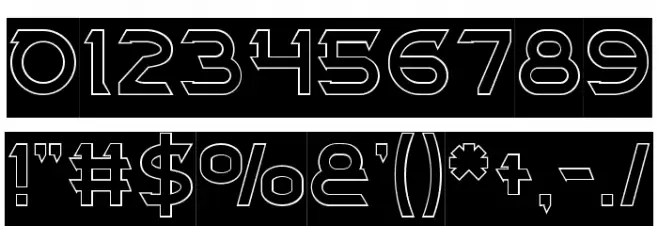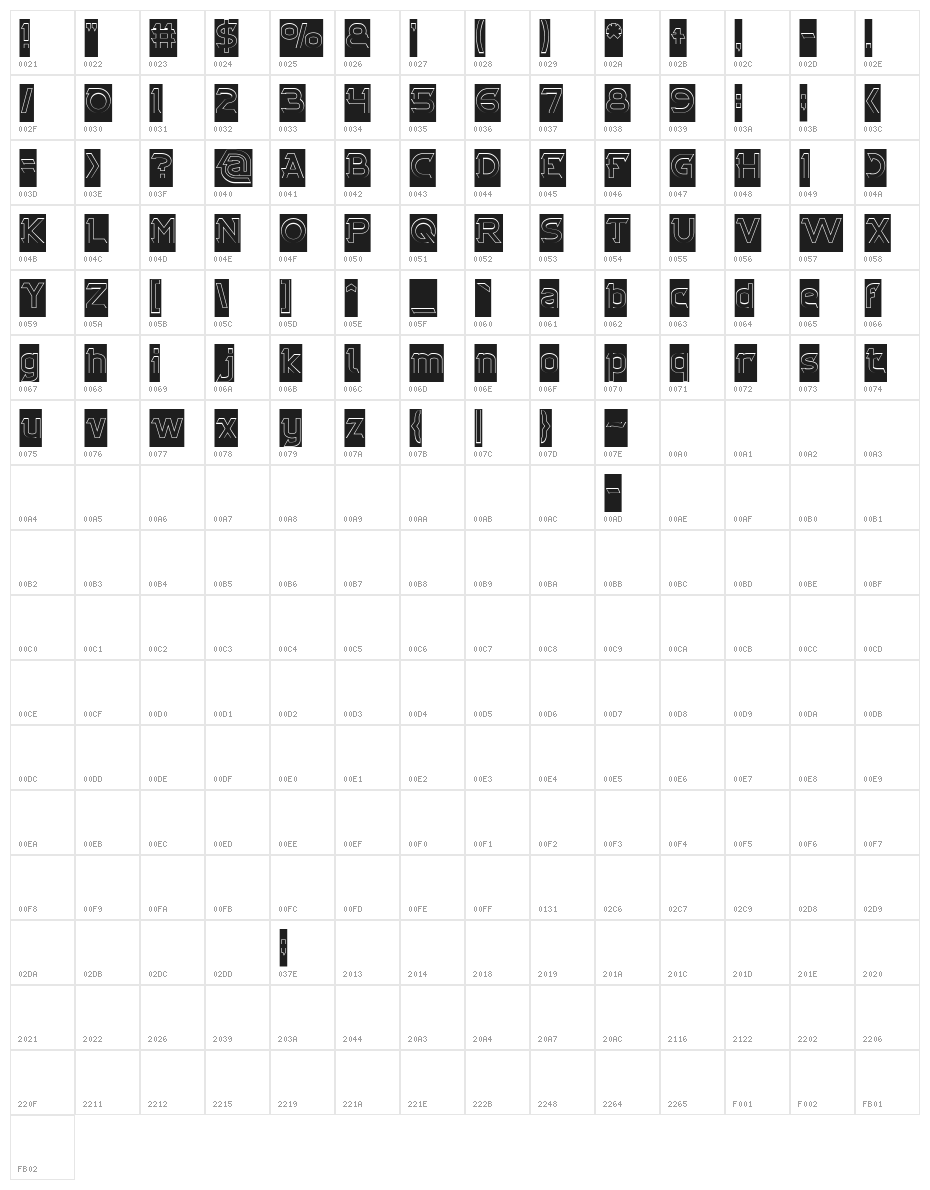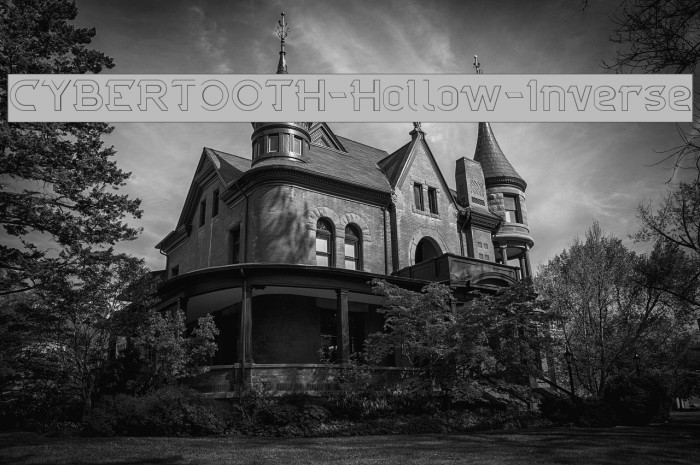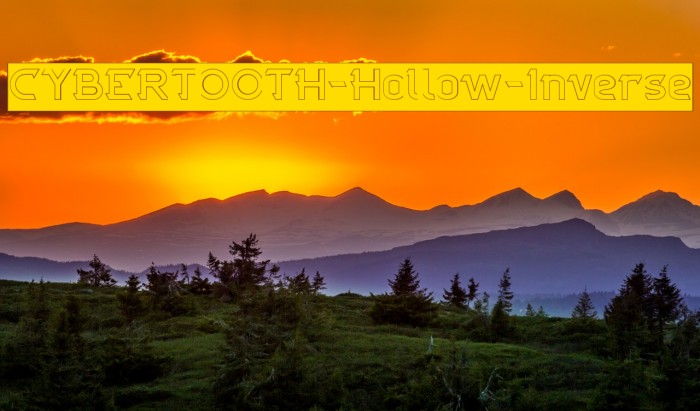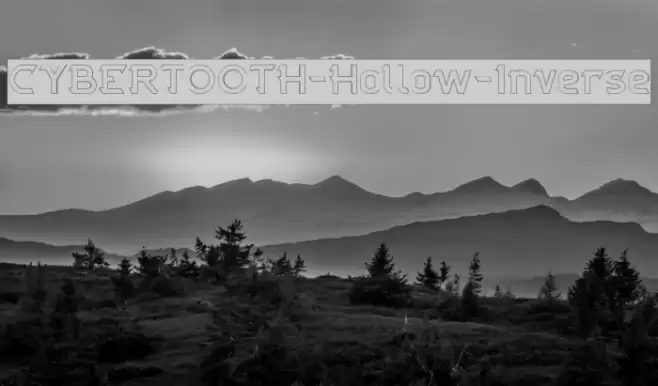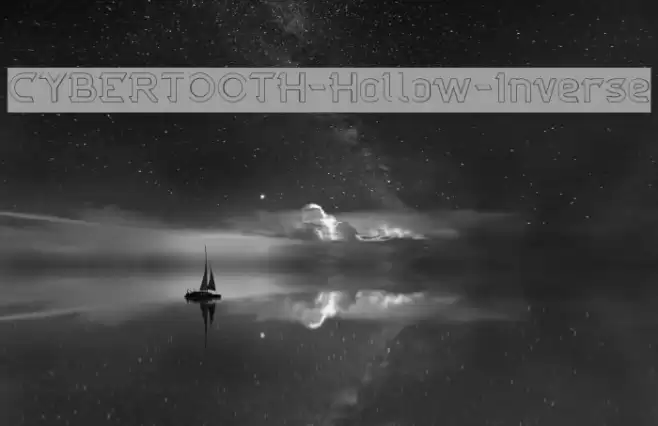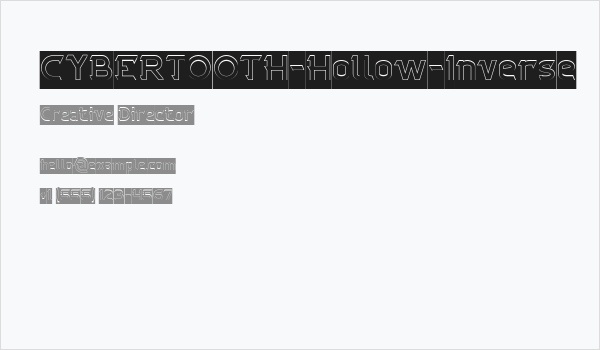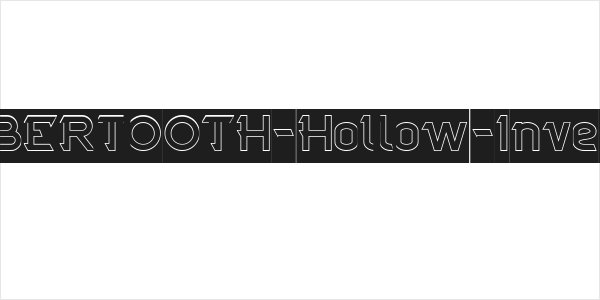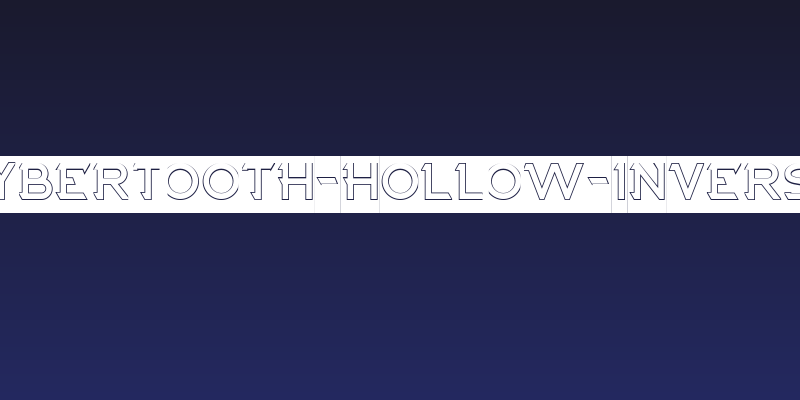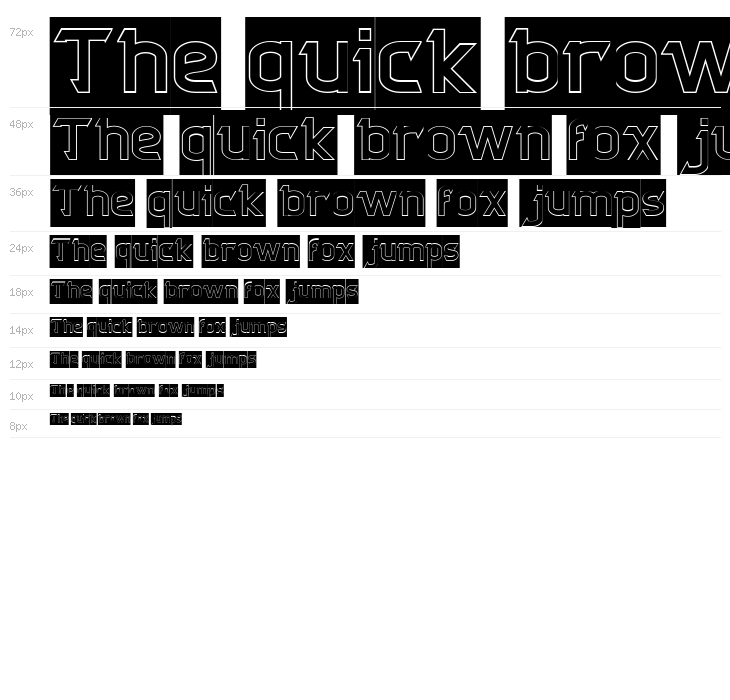
CYBERTOOTH-Hollow-Inverse Font
CYBERTOOTH-Hollow-Inverse Description
This font features a bold, hollow design with a futuristic and geometric aesthetic. The characters are outlined, creating a striking inverse effect that emphasizes the negative space within each letter. The uppercase and lowercase letters maintain a consistent style, with sharp angles and clean lines that give the font a modern, tech-inspired look. The numerals and special characters follow the same design principles, ensuring uniformity across all glyphs. This font's unique style makes it ideal for projects that require a bold statement or a high-tech feel.
| Proposed Projects | Ideal for technology branding, sci-fi posters, video game titles, and digital art projects. |